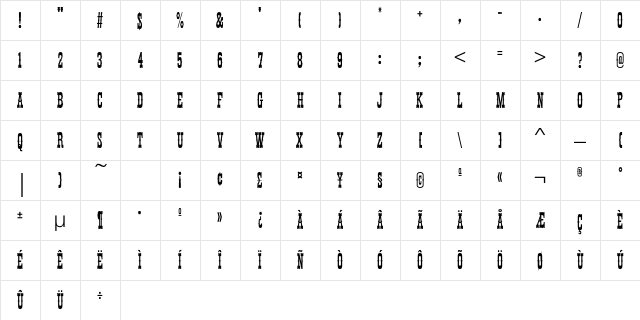
ThunderbirdEF-ExtraCondensed Regular
Design Context for ThunderbirdEF-ExtraCondensed
ThunderbirdEF-ExtraCondensed is a composed and adaptable typeface that performs quietly and consistently across a wide range of design contexts. Its narrow stance lets it pack a punch even in space-constrained designs.
Pro Tip: Use ThunderbirdEF-ExtraCondensed in both headline and body roles to test its range before committing to a single application.